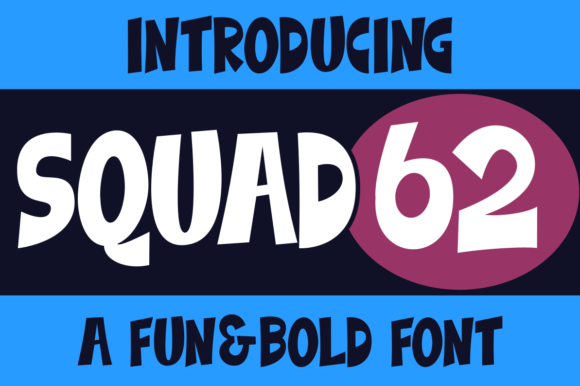
Behold Squad 62, a typographic masterpiece crafted to turn your creative visions into captivating realities. This bold and chunky display font will inject a dose of personality and energy into your designs, making them leap off the screen with undeniable charisma.
Immerse yourself in the world of Squad 62, where each letterform is meticulously designed to command attention and leave a lasting impression. Its robust strokes and playful curves exude a sense of boldness and confidence, perfect for headlines that demand attention or eye-catching posters that refuse to be ignored.
Unleash your creativity and let Squad 62 elevate your designs to new heights. This display font is a versatile chameleon, effortlessly adapting to a multitude of projects. Picture it gracing your website headers, social media posts, or even your latest branding project. The possibilities are endless, bounded only by the limits of your imagination.
Squad 62 is not just a font; it's an experience. Its every curve and line is infused with a touch of magic, transforming ordinary words into captivating statements. Experience the joy of watching your designs come to life, brimming with personality and character, all thanks to the transformative power of Squad 62.
Join the ranks of creative visionaries who have embraced Squad 62 as their font of choice. Let it be your secret weapon to create designs that resonate with audiences, leaving them spellbound and eager for more. Embrace the boldness of Squad 62 and embark on a creative journey that will redefine your design horizons.